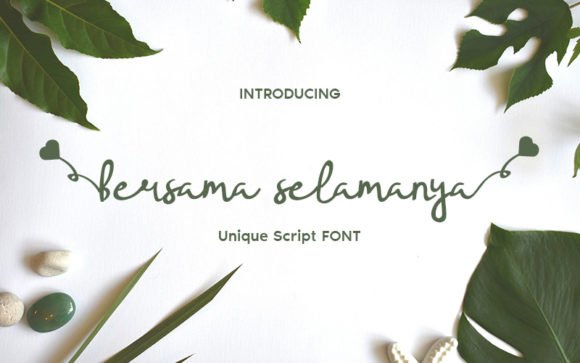
Bersama Selamanya Font: Where Creativity Meets Endless Possibilities
Have you ever been in the midst of a design project, pouring your heart and soul into every detail, only to feel like something is missing? You’re not alone. We’ve all been there. It’s in these moments that we turn to the perfect font to elevate our work and make it truly special. For designers seeking that extra oomph, we’re excited to introduce the Bersama Selamanya Font – a gorgeous and friendly script font designed to bring your designs to life.
This beautiful font is not just aesthetically pleasing, but also incredibly versatile, making it a valuable addition to any designer’s toolkit. With its PUA encoding, you’ll have access to all the glyphs and swashes, allowing you to create stunning designs that truly reflect your unique style. Whether you’re working on a wedding invitation, a children’s book, or a brand identity, the Bersama Selamanya Font is sure to impress.
Bersama Selamanya Font Key Features
- Font Family: A unique and elegant script font, designed to evoke a sense of romance and sophistication.
- Unique Characteristics: Features a flowing, handwritten feel with subtle flourishes and elegant connections between letters, adding a touch of sophistication to any design.
Bersama Selamanya Font Review
I recently had the chance to work with the Bersama Selamanya font, and I have to say, it’s a unique and interesting addition to any design project. ✨ One of the things that works well is its versatility. The font comes in various weights and styles, making it easy to find the perfect fit for your design needs. It also has a beautiful, hand-drawn feel that adds a touch of warmth and personality to any text.
Another aspect of the font that I appreciate is its ability to be used for both digital and print projects. ✨ The font’s legibility and clarity make it perfect for body text, while its decorative elements make it a great choice for headings and titles.
- ⚠️ The font may not be suitable for all design projects, particularly those that require a more modern or minimalist aesthetic.
- ⚠️ The font’s decorative elements can be overwhelming if not used sparingly, so be sure to balance them with simpler text.
Overall, I think the Bersama Selamanya font is a great choice for designers who want to add a touch of personality and warmth to their projects. With its versatility and unique aesthetic, it’s a great addition to any design toolkit. Just be sure to use it judiciously and balance its decorative elements with simpler text.
Tips for Getting the Most Out of Bersama Selamanya Font
Use Bersama Selamanya Font for creating a unique and personalized touch in your designs.
Combine it with bold or italic styles for added emphasis.
Bersama Selamanya Font is ideal for:
Personalized gifts and mementos
Custom event branding and marketing materials